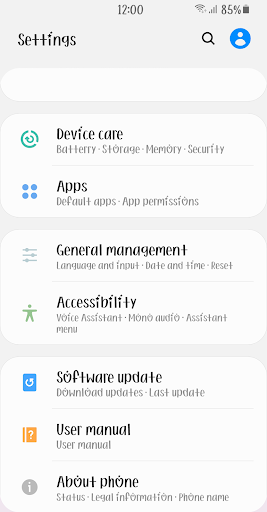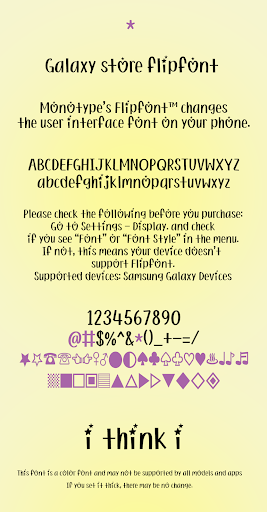
Ahithinki
This font is a cute handwriting written naturally with a pen. It features the shape of a shining star and the width of interesting handwriting.